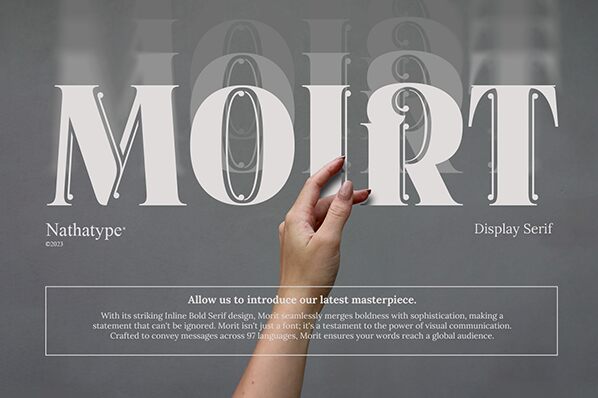
Moirt font by Nathatype is a retro display font with decorative, vintage-inspired elements. A bold, ornate typeface featuring an impactful design, it is ideal for short attention-grabbing texts such as logo names, signage, advertising headlines, and more.